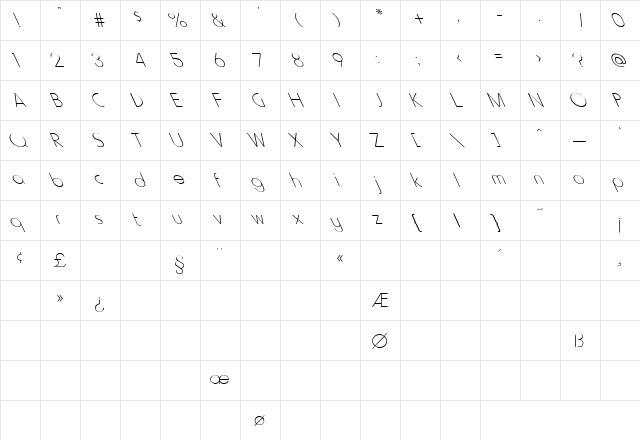
Howard-Light-Extreme Leftified Regular
Design Context for Howard-Light-Extreme Leftified Typeface
Howard-Light-Extreme Leftified offers clean, dependable letterforms without strong stylistic allegiance, making it a practical choice for designers who need flexibility. The delicate stroke weight brings airiness and refinement to layouts.